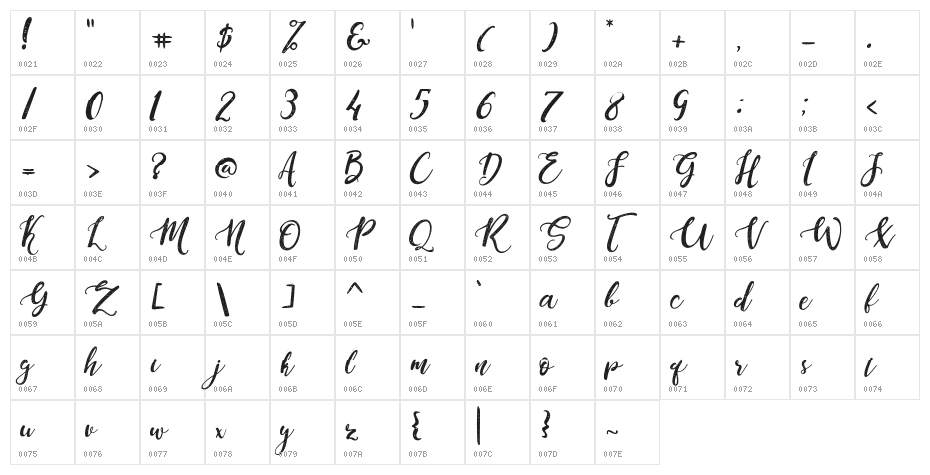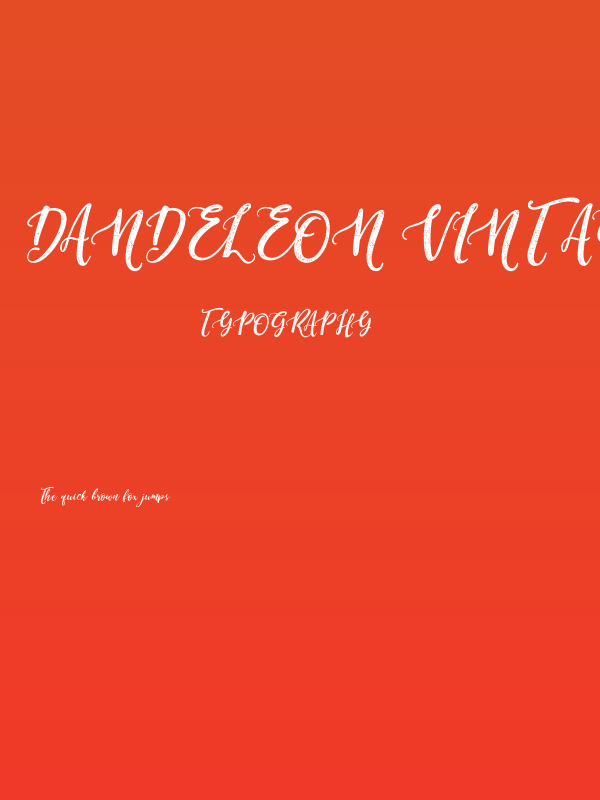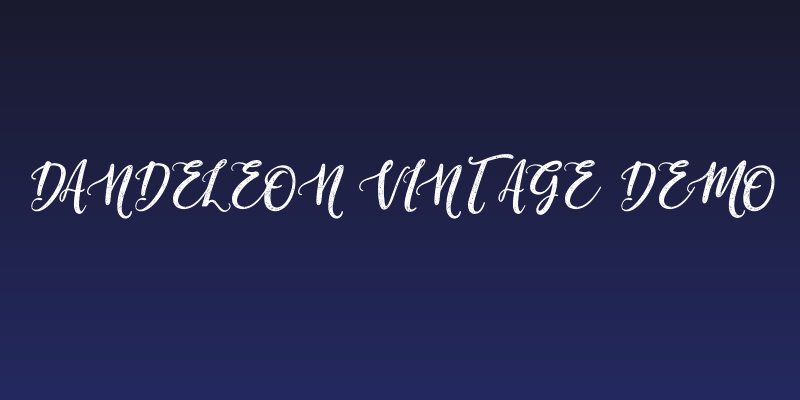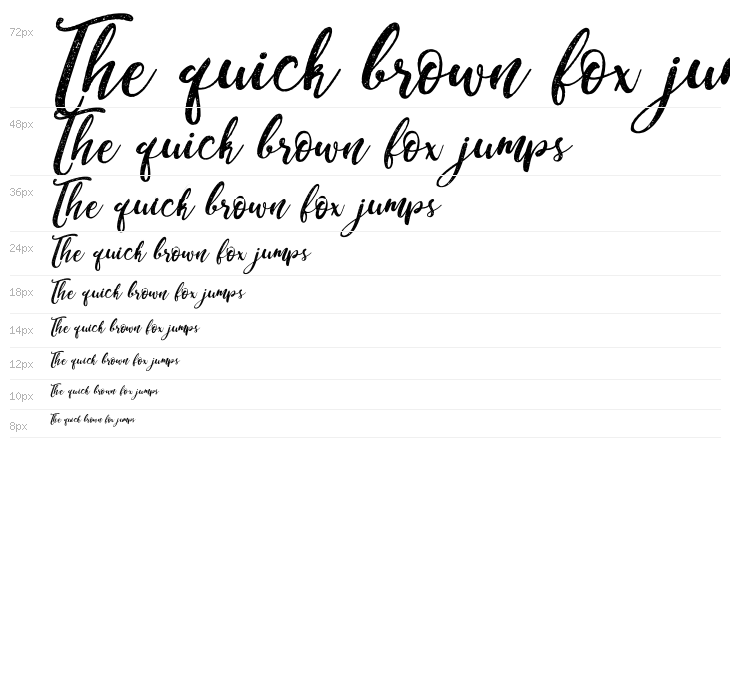
Dandeleon Vintage Demo Font
Dandeleon Vintage Demo Description
This font exudes a vintage charm with its elegant, flowing script style. The letters are crafted with a hand-drawn appearance, featuring a textured, slightly distressed look that adds character and depth. The uppercase letters are bold and sweeping, while the lowercase letters maintain a graceful, cursive flow. Numbers and special characters follow the same stylistic cues, ensuring consistency throughout. The overall design is reminiscent of classic calligraphy, making it ideal for projects that require a touch of nostalgia and sophistication.